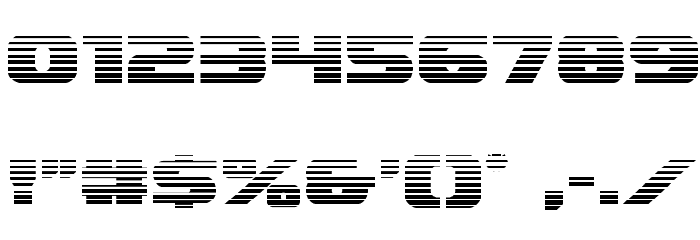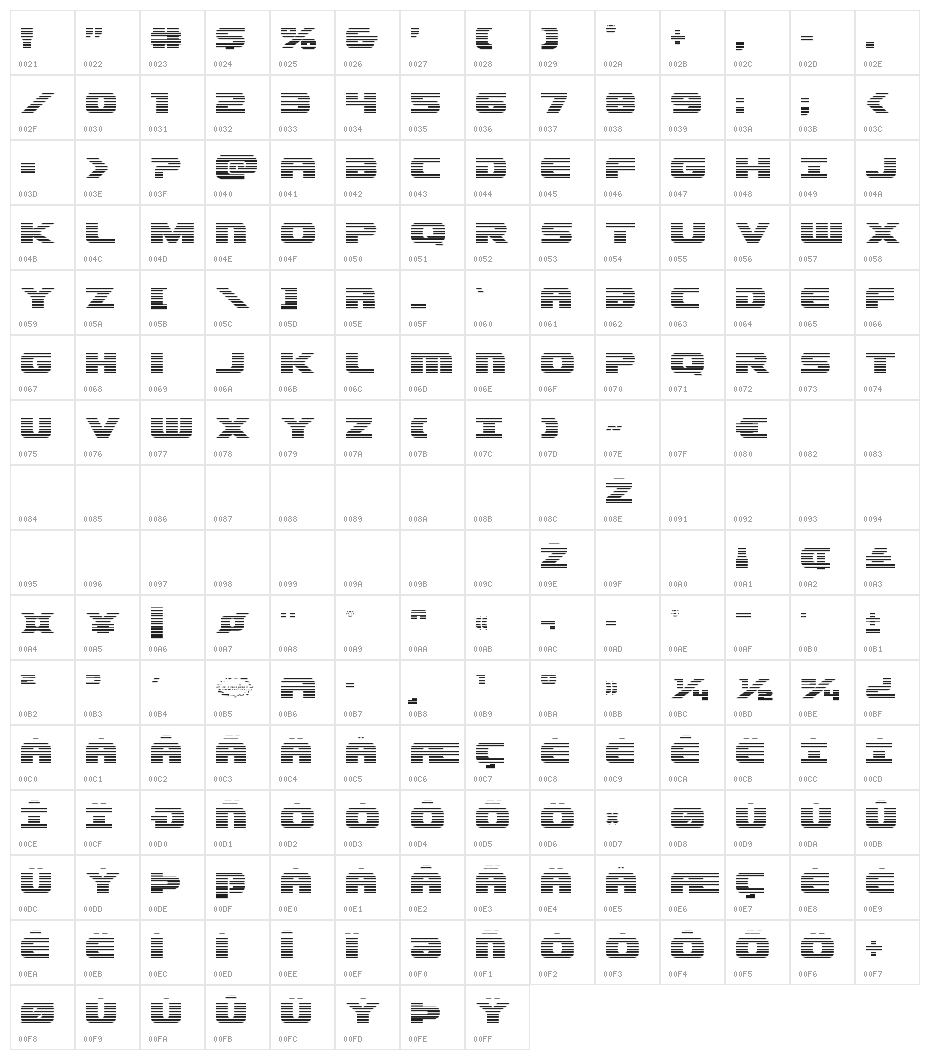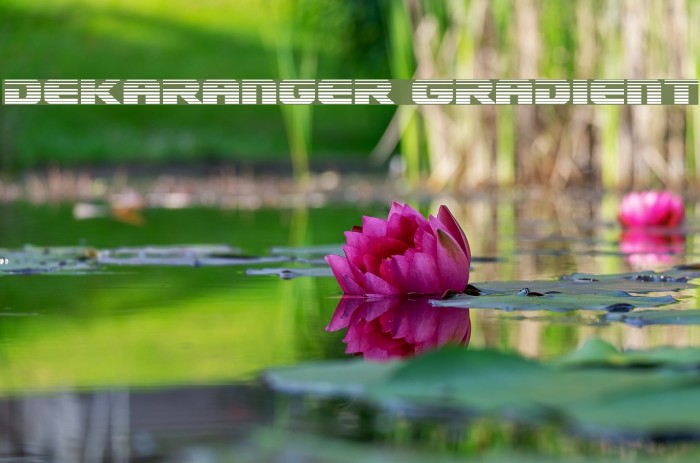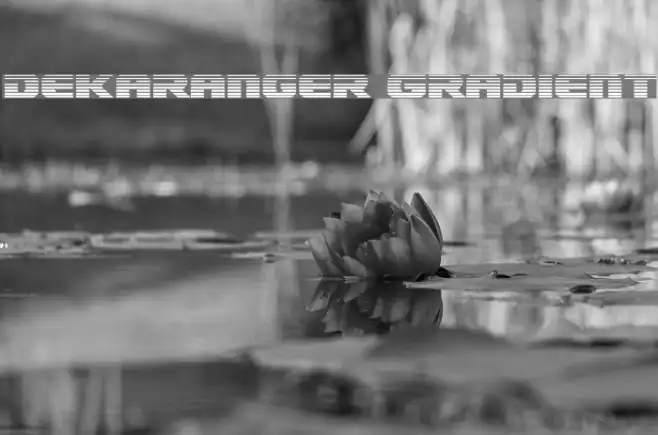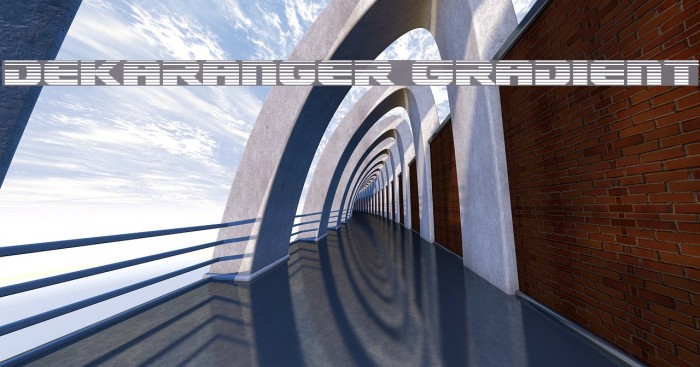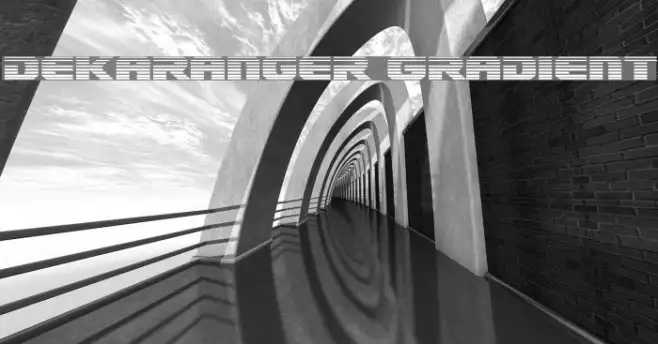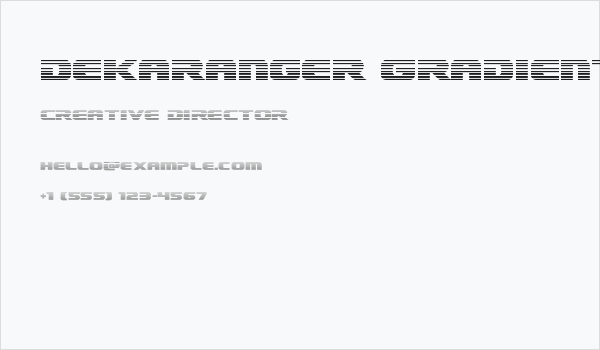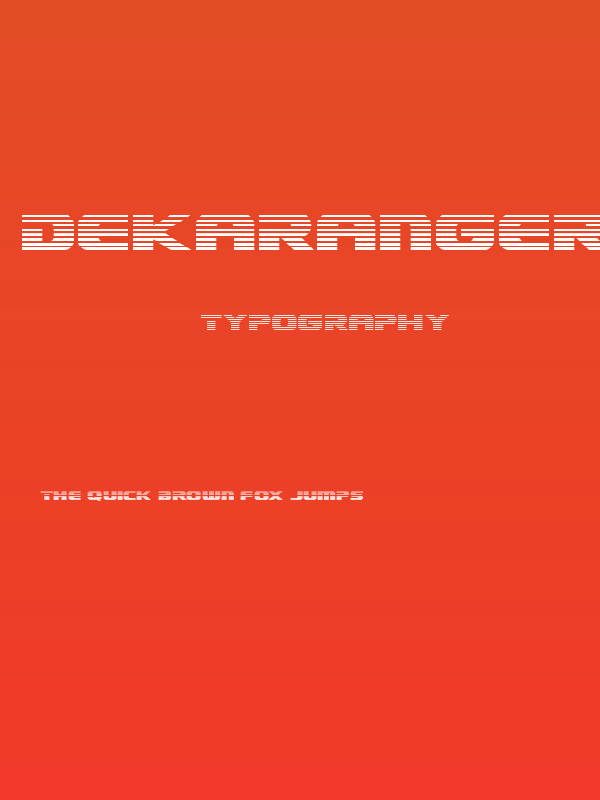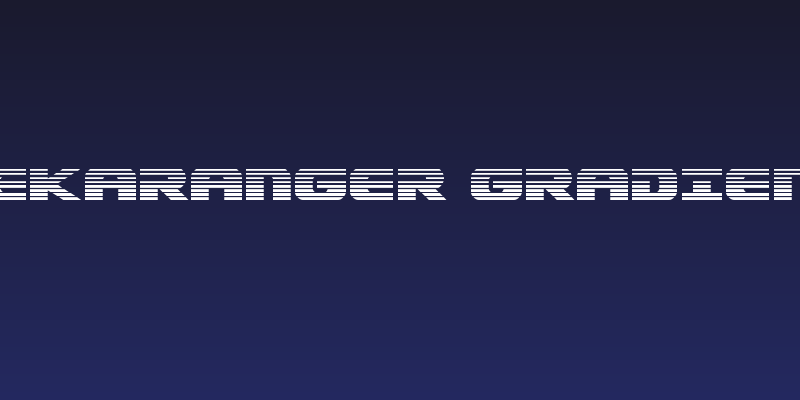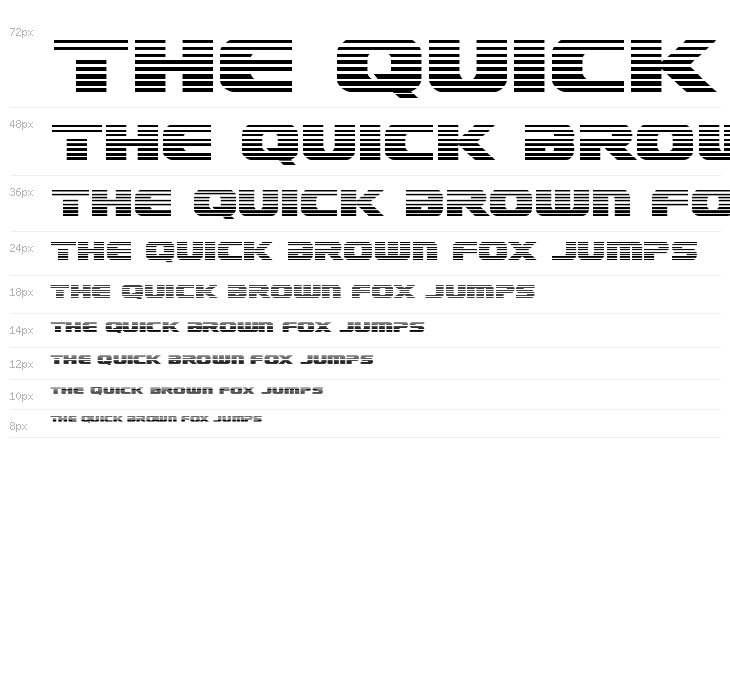
Dekaranger Gradient Font
Dekaranger Gradient Description
This font features a bold, futuristic design characterized by its horizontal striped pattern across each character. The uppercase and lowercase letters, as well as numbers and special characters, maintain a consistent style that emphasizes a modern, digital aesthetic. The lines create a sense of movement and energy, making it ideal for projects that require a dynamic and eye-catching look. The uniformity in the design ensures readability while adding a unique visual flair.
| Proposed Projects | Ideal for sci-fi themed posters, video game titles, tech branding, and digital media projects. |